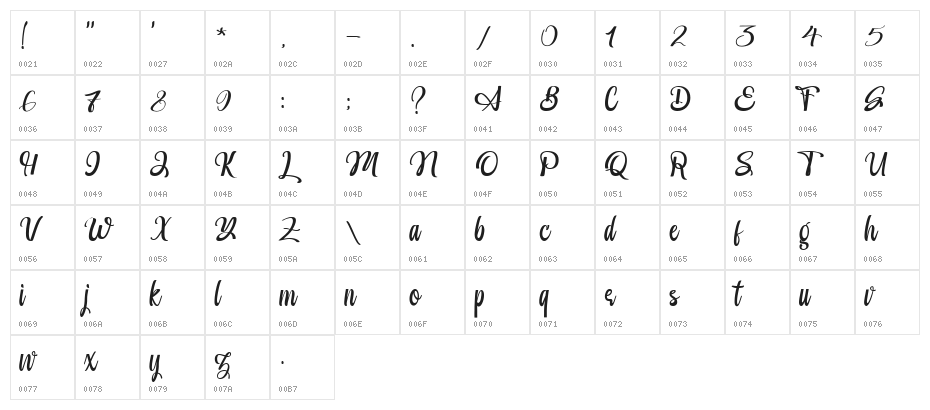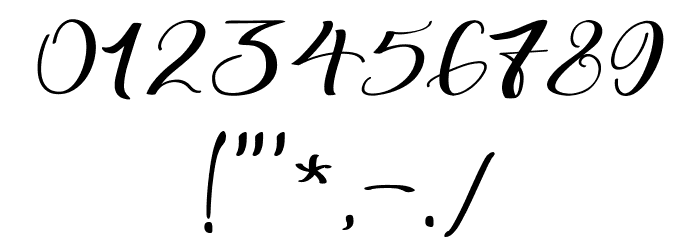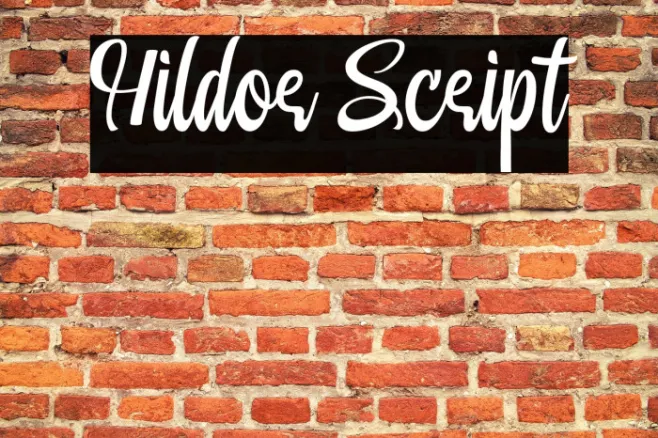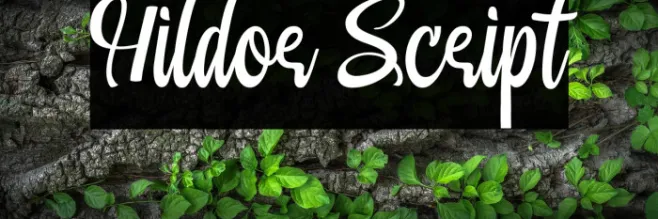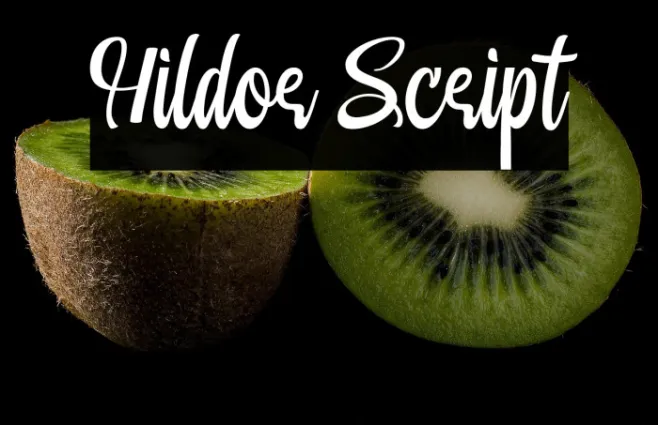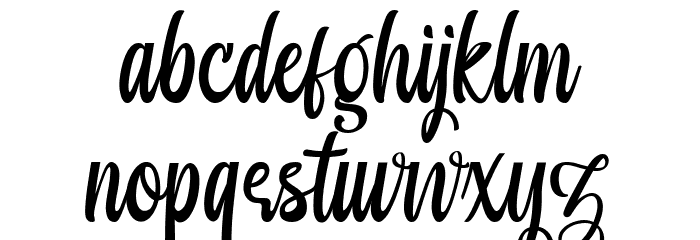
Hildor Script Font
Hildor Script Description
This elegant script font features a flowing, cursive style with intricate swashes and loops that give it a sophisticated and artistic appearance. The uppercase letters are particularly ornate, with flourishes that extend beyond the baseline, adding a touch of drama and flair. The lowercase letters maintain a consistent flow, making them highly readable despite their decorative nature. The numerals and special characters are designed to match the overall aesthetic, ensuring a cohesive look across all text elements. This font is perfect for projects that require a touch of elegance and creativity.
| Proposed Projects | Ideal for wedding invitations, elegant branding, greeting cards, and artistic posters. |